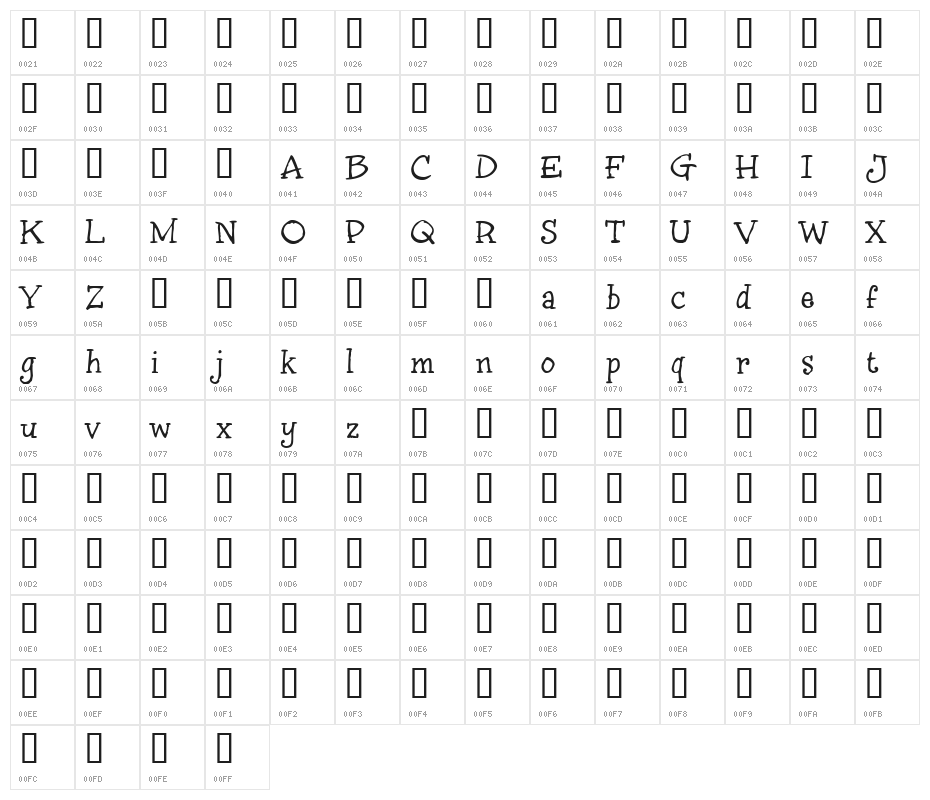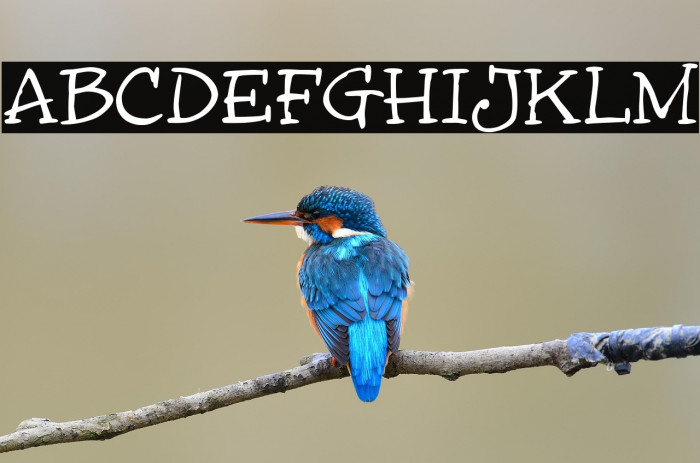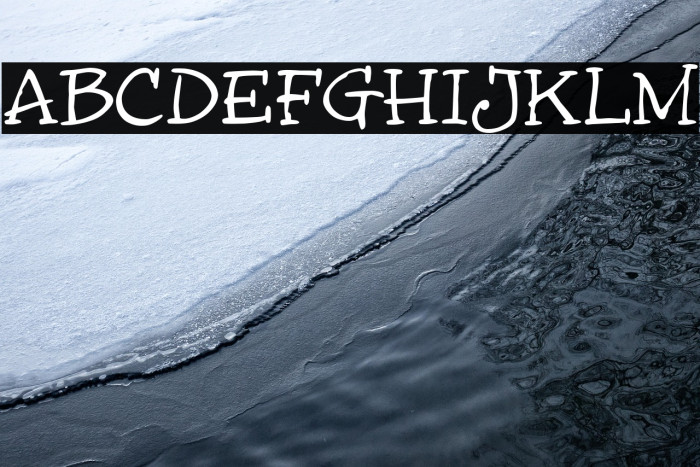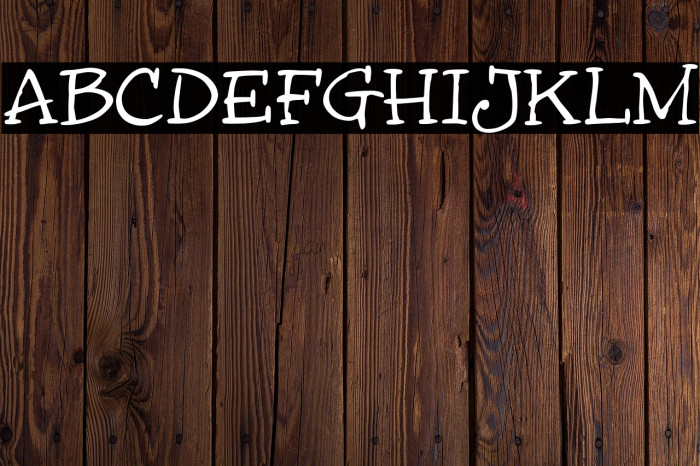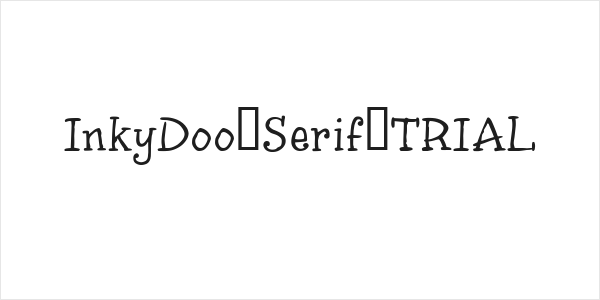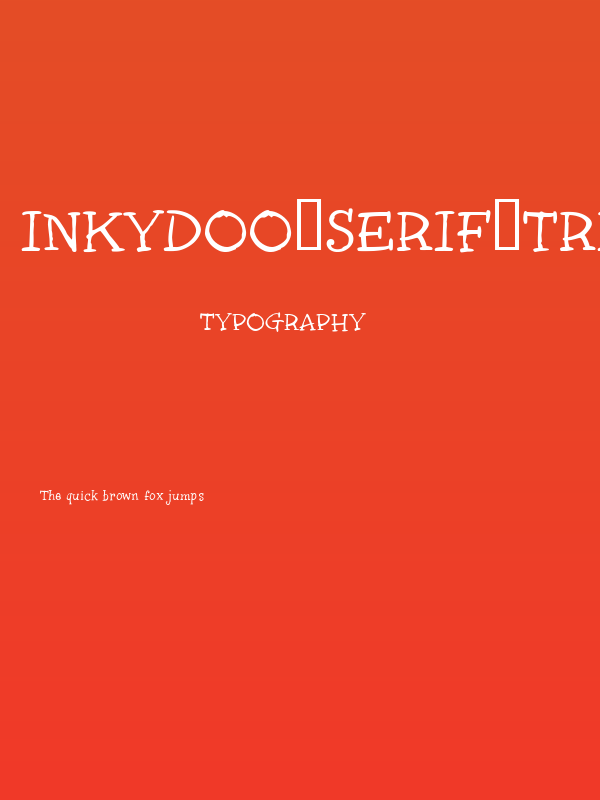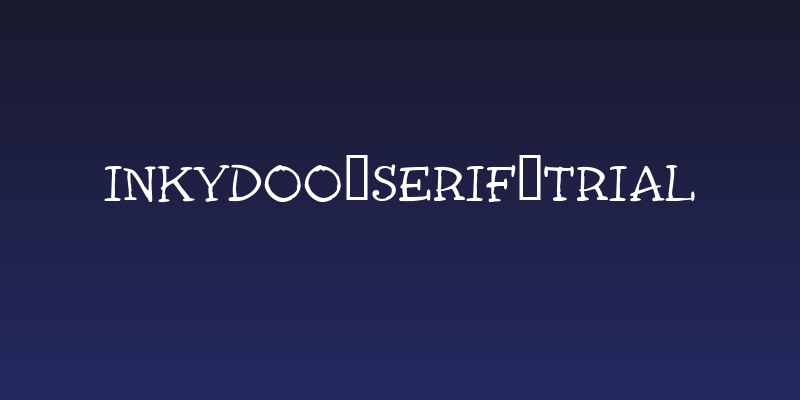
InkyDoo_Serif_TRIAL Font
InkyDoo_Serif_TRIAL Description
This font features a playful and whimsical design, characterized by its hand-drawn appearance and uneven strokes. The letters have a casual, informal style with slight variations in thickness, giving it a unique and artistic look. The uppercase and lowercase letters maintain a consistent style, with rounded edges and a slightly irregular baseline, adding to its charm. The font's overall appearance is reminiscent of handwriting, making it suitable for creative and informal projects. The spacing between characters is balanced, ensuring readability while maintaining its distinctive style.
| Use Case | Headlines, Creative projects, Informal text |
| Proposed Projects | Ideal for children's books, greeting cards, creative posters, and informal branding. |